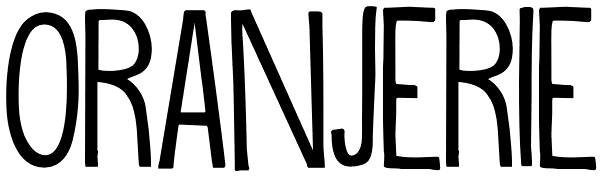
Oranjerie
Oranjerie is a very nice, handmade and legible font which will fit in just anywhere. The glyphs differ slightly in width and height, giving it a unique look. Upper and lower case letters can be freely interchanged.